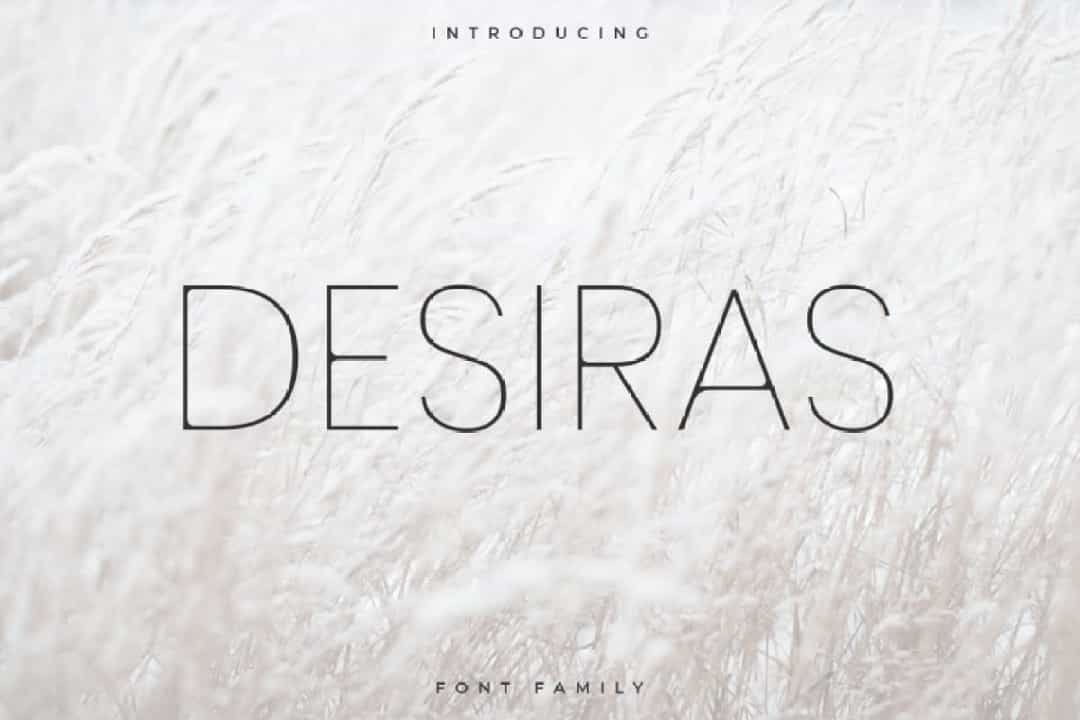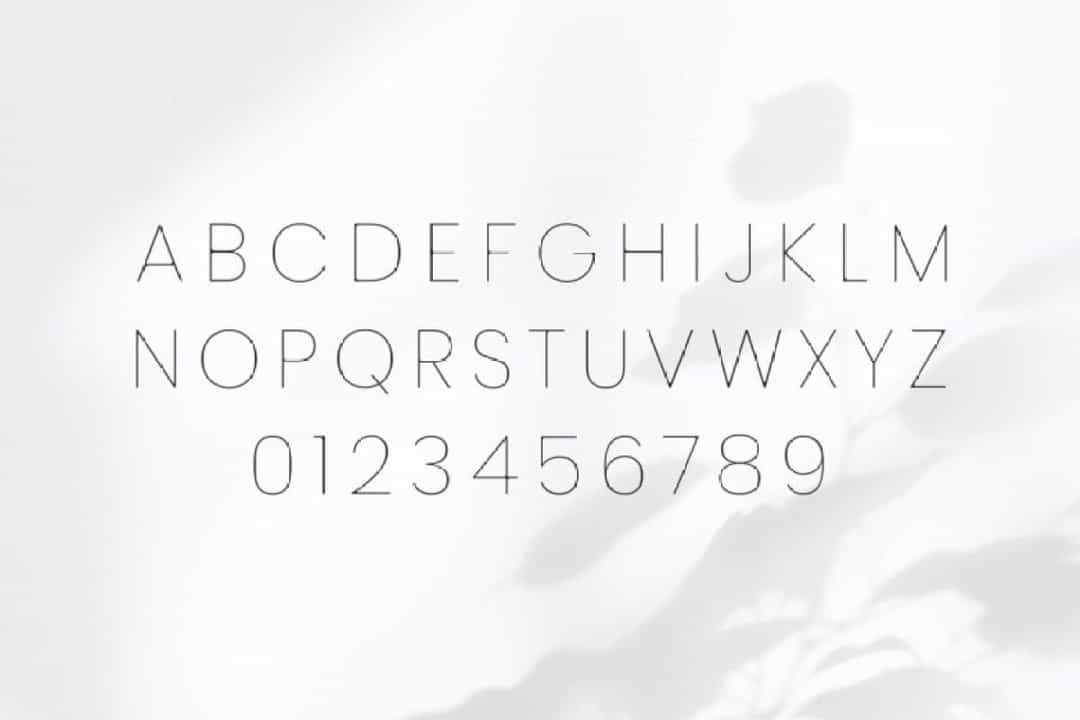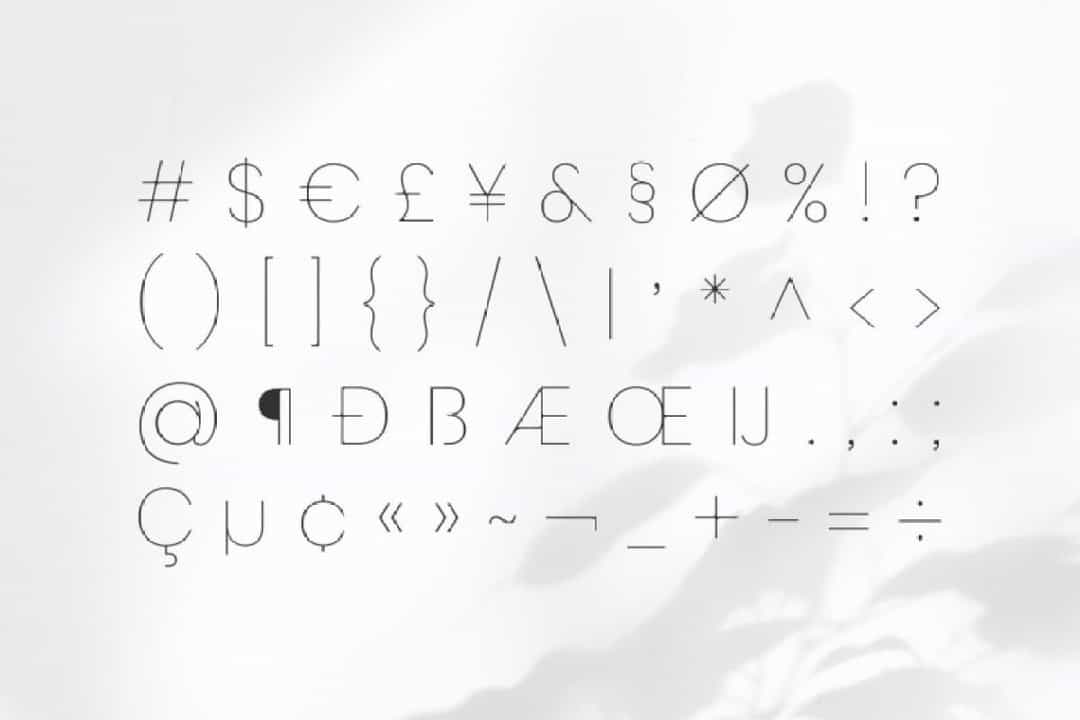
Desiras is a beautiful sans-serif font that will not go out of style and is perfect for headers, layouts, webpage, etc! Four weights of the font are presented for use in logo design for magazines or for any type of project you are working on, be it invitations or advertising!